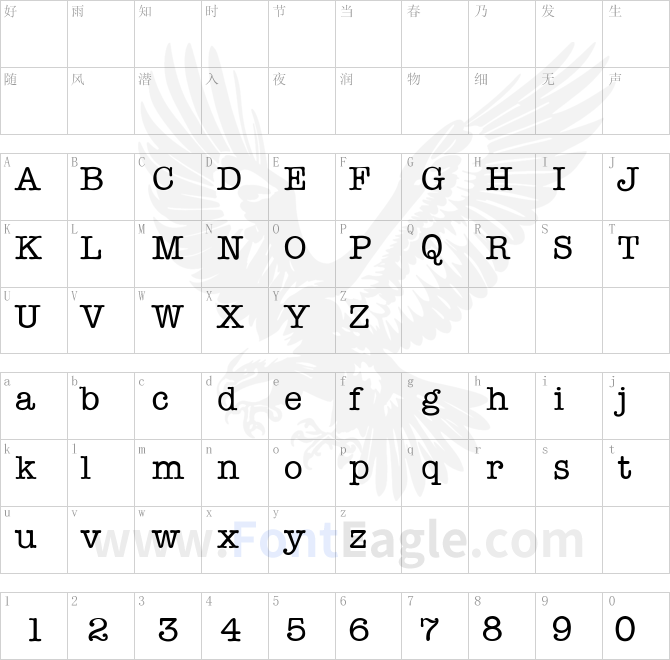
AmericanTypewriter-Light is a great font, widely used in graphic design, single-page menu design, poster design and other fields, and is deeply loved by designers.AmericanTypewriter-Light download.